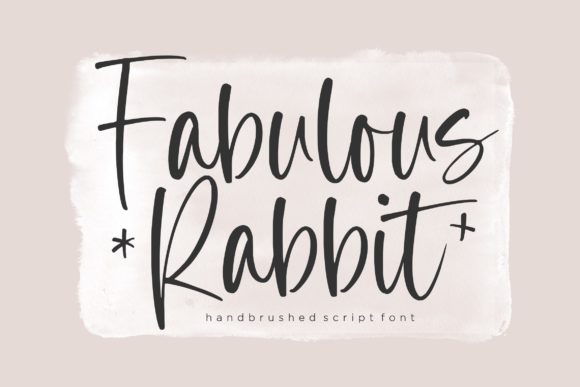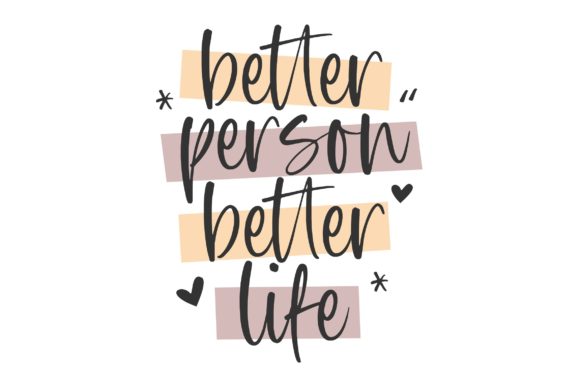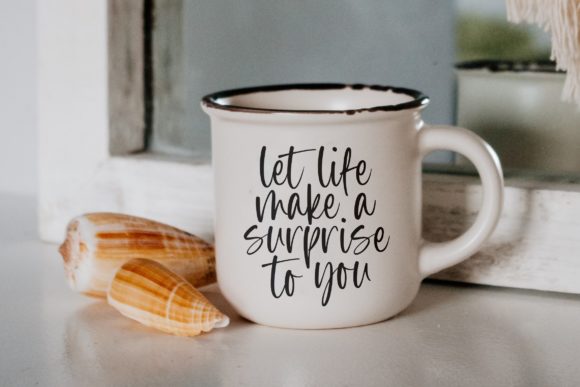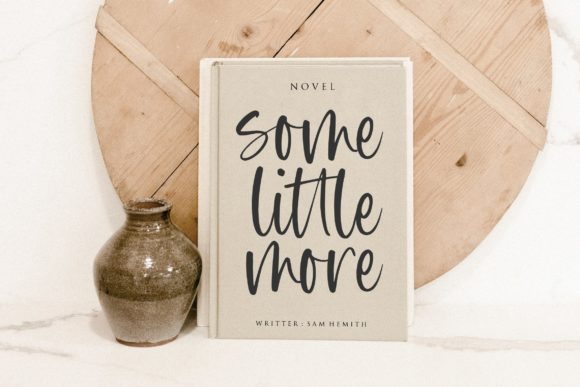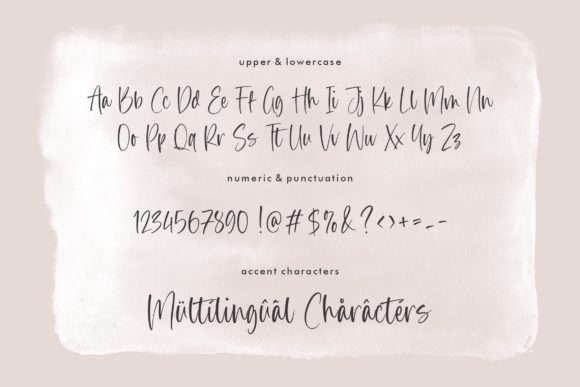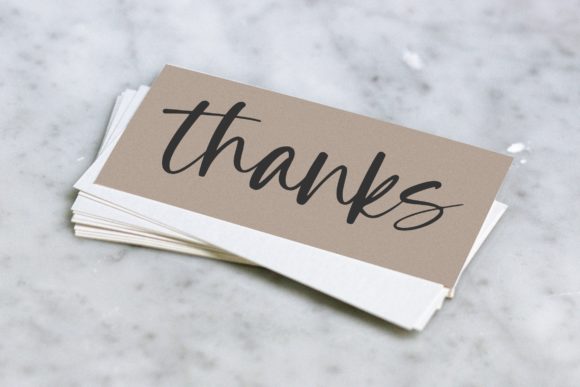
Fabulous Rabbit Handbrushed Script Font
About Fabulous Rabbit Handbrushed Script Font
Welcome to the enchanting world of Balpirick Studio, where creativity knows no bounds. We take great pride in presenting our latest creation – the Fabulous Rabbit Font. This Handbrushed Script Font is not just a typographic masterpiece; it’s a journey into the whimsical, offering a charming and slim handwritten style that is sure to captivate your imagination.
**Fabulous Rabbit Font Overview:**
Designed with meticulous attention to detail, Fabulous Rabbit is a testament to the artistry that lies within our studio. The font comes in both OTF and TTF formats, ensuring compatibility with a wide range of design software. This versatility is further amplified by the inclusion of multilingual support, allowing you to seamlessly integrate the font into projects targeting diverse audiences.
**Charm in Every Stroke:**
The cute and slim characteristics of Fabulous Rabbit make it a standout choice for various creative applications. Whether you’re crafting invitations, designing logos, or adding a personal touch to your branding, this font effortlessly blends playfulness with sophistication. Its handbrushed script style brings a unique warmth and authenticity, creating a visual narrative that resonates with viewers.
**Unleash Your Imagination:**
Fabulous Rabbit isn’t just a font; it’s a catalyst for boundless creativity. No matter the theme or subject matter, this font serves as a dynamic asset in your font library, ready to elevate and enhance any project it graces. Its potential is as limitless as your imagination, promising a seamless integration into your design workflow.
**Global Appeal:**
We understand the importance of reaching a global audience. With Fabulous Rabbit’s multilingual support, language is no barrier. Share your message with the world, breaking through linguistic boundaries and ensuring your designs resonate with diverse cultures.